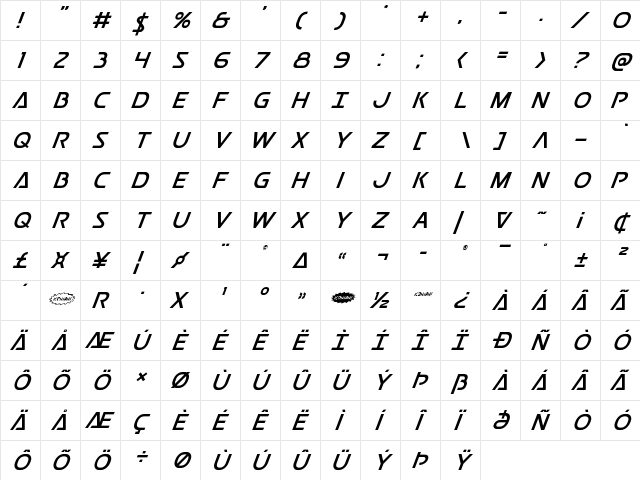
Postmaster Italic Italic
Design Context for Postmaster Italic Typeface
Postmaster Italic is a composed and adaptable typeface that performs quietly and consistently across a wide range of design contexts. The dynamic lean of this cut emphasises speed and emphasis in any layout.